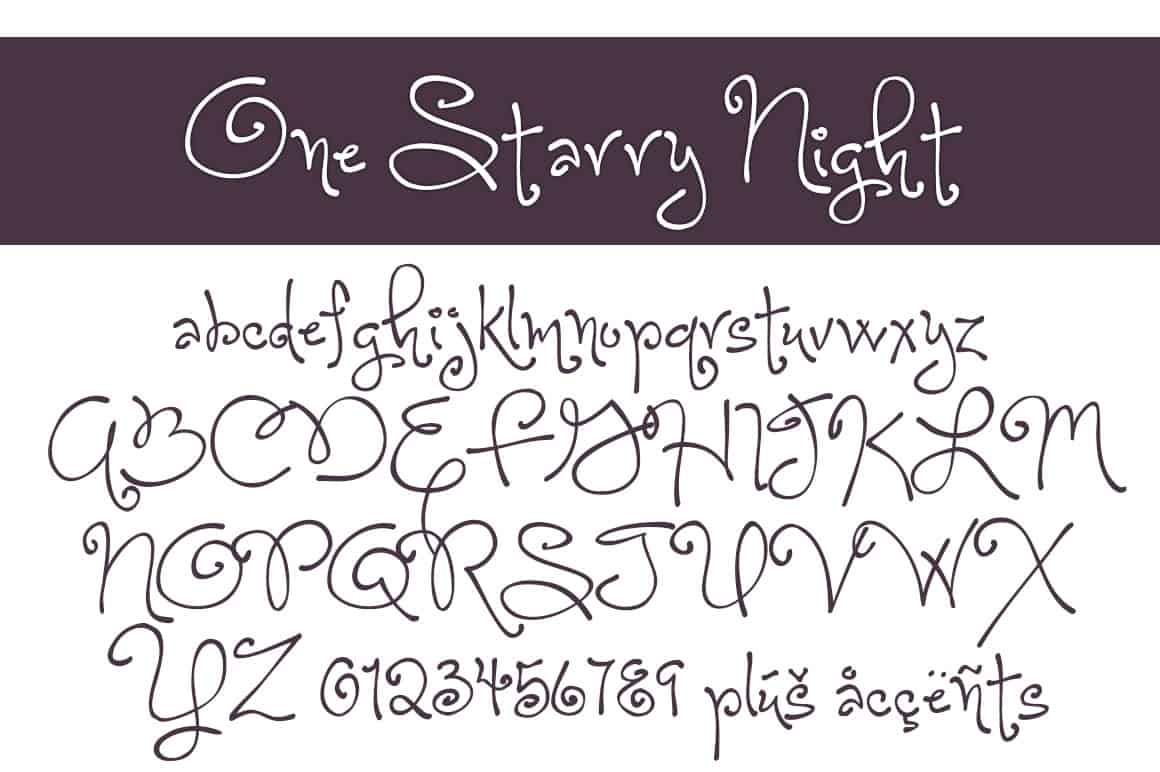
One Starry Night Font
One Starry Night Letters
About the One Starry Night Font
One Starry Night is a swirly, curly handwritten font great for crafts or cards!